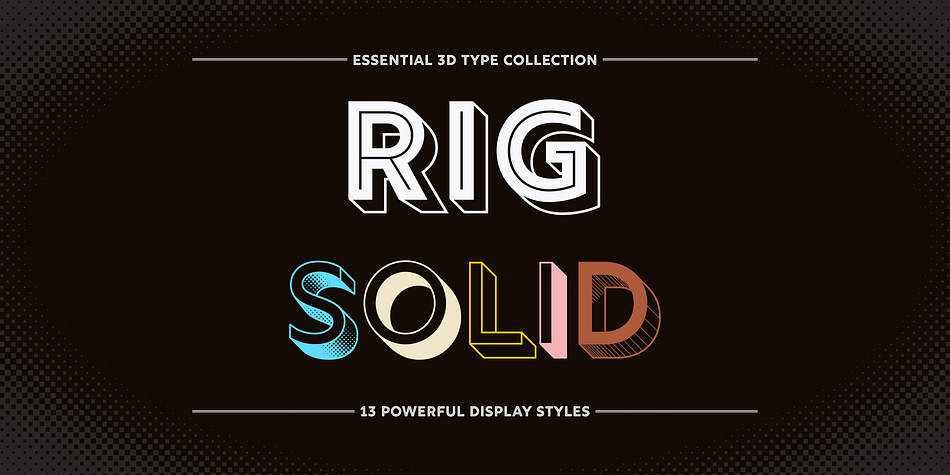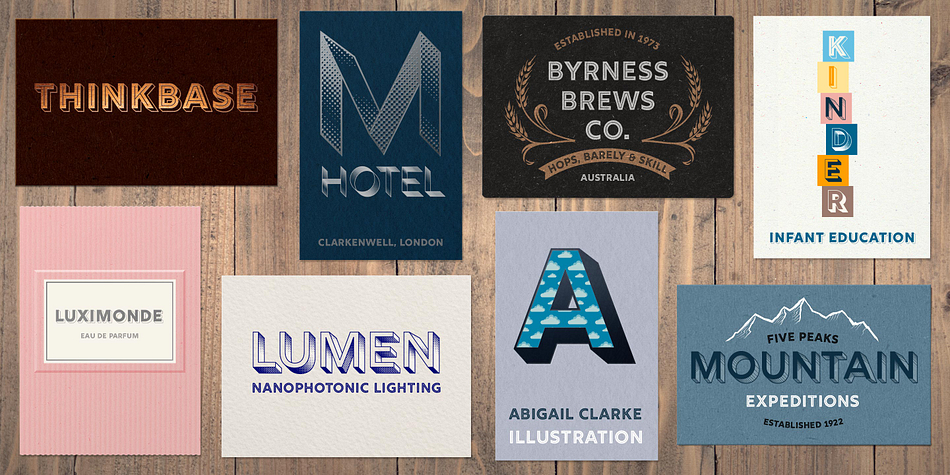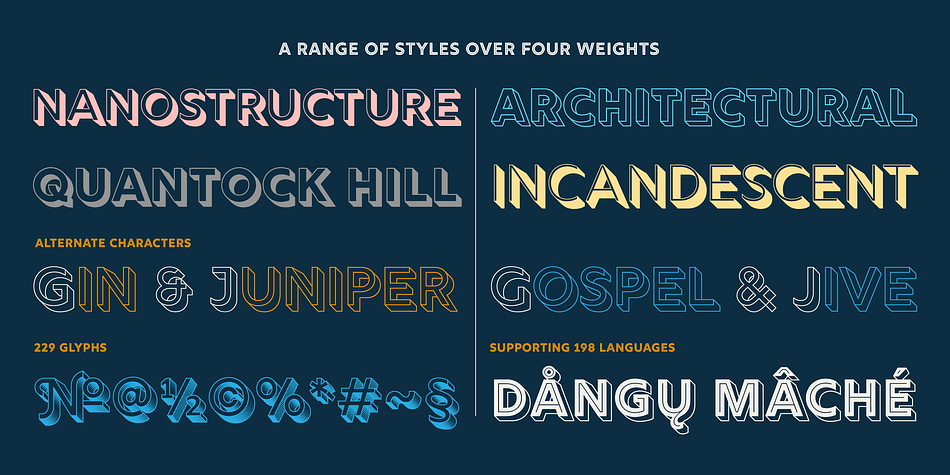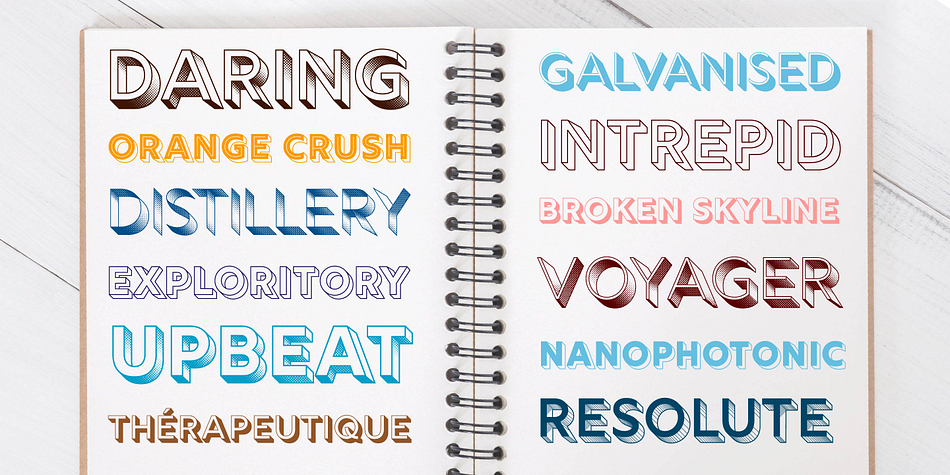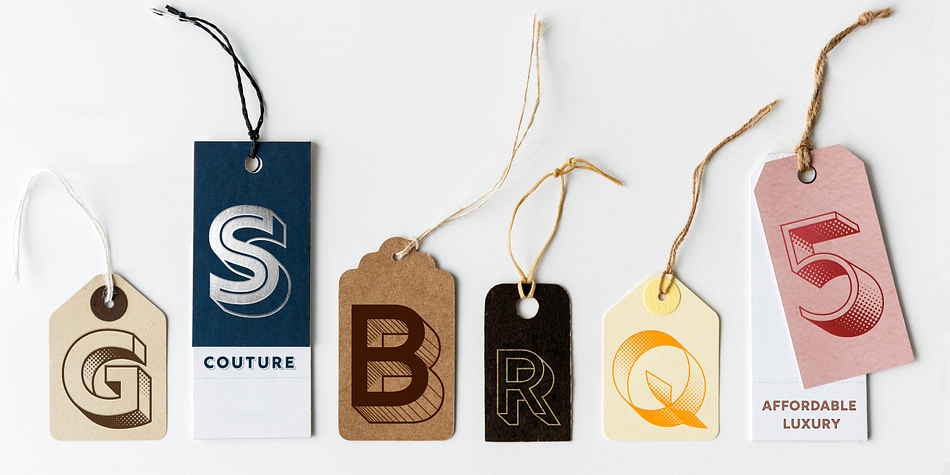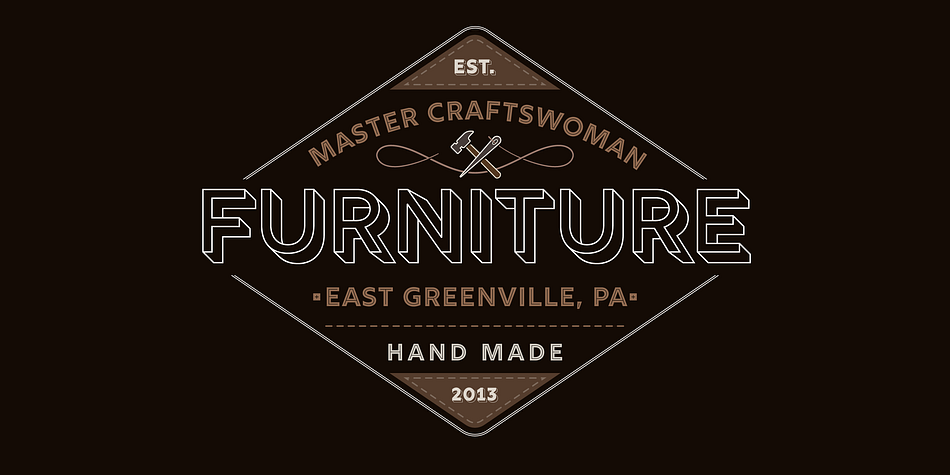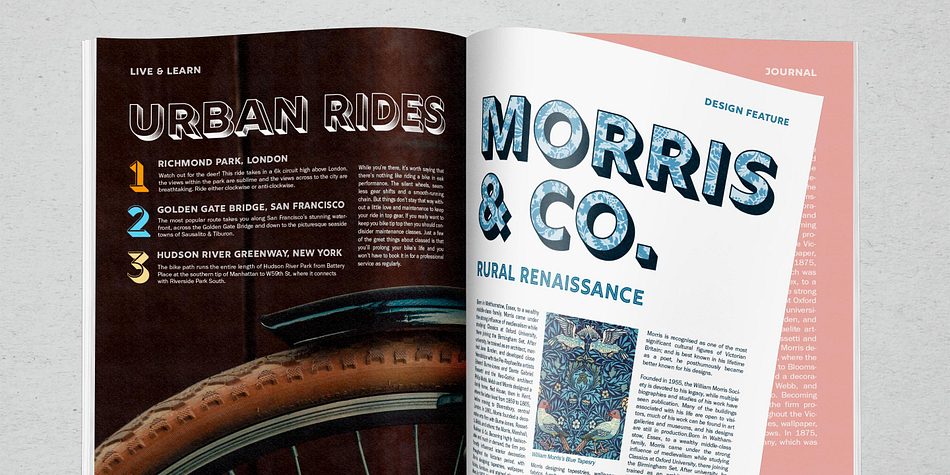
Designed by Jamie Clarke, Rig Solid is a display sans font family. This typeface has thirteen styles and was published by Jamie Clarke Type.
Rig Solid extends your graphic design toolkit with a range of powerful 3D fonts.
• 13 styles across four weights
• Solid and gradient designs
• Based on clean, ‘unbreakable’ geometric shapes
• Perfect for headlines and logos
Rig Solid was originally conceived as a distilled version of its popular big brother, Rig Shaded, however, it rapidly
expanded into a distinct family of its own.
The striking halftone styles add eye-catching texture to your typography, while the hardy, solid styles give a visual punch to your designs and remains prominent when used over photography and textured backgrounds.
The family includes the unshaded style, ‘Bold Solo’, to perfectly compliment the shaded styles or be used on its own.